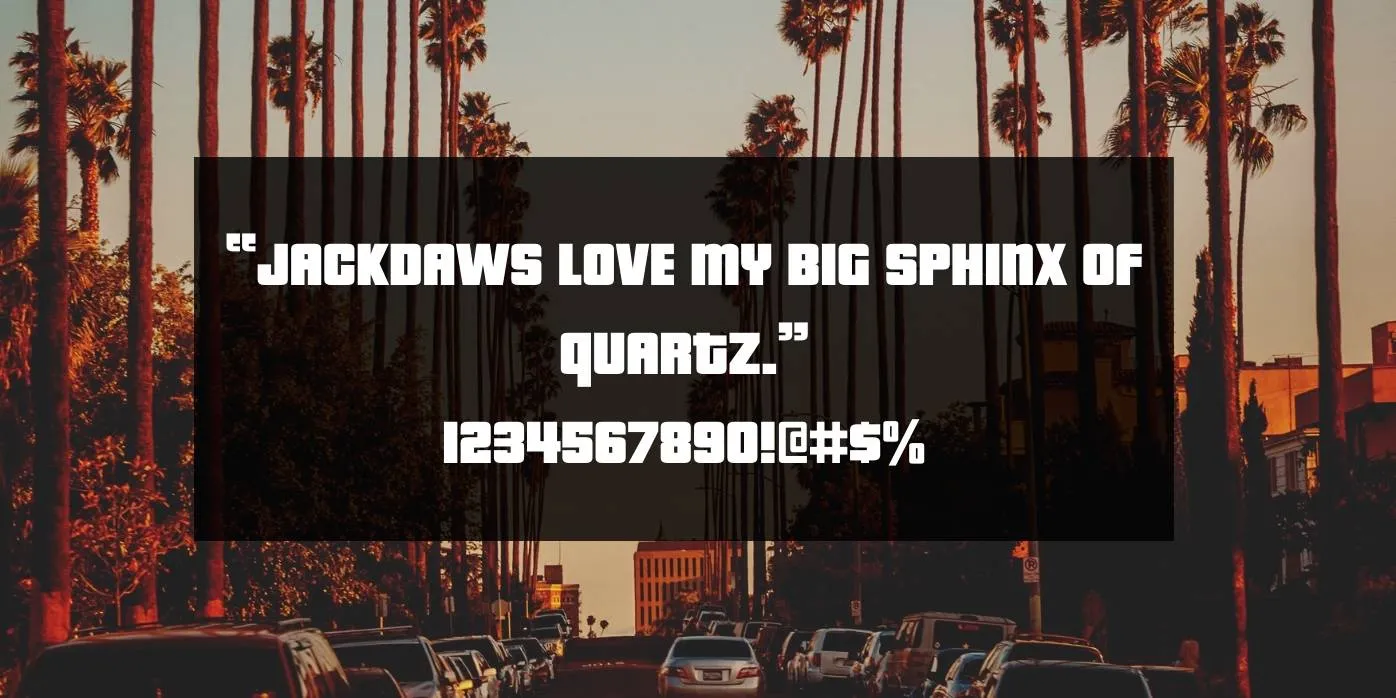
GTA Font
Let us introduce you to the official update of GTA Font. The main purpose to designs this family is used for the logos of famous magazines. It is from logo-type font but we should shift to the category of sans serif fonts. This font family is also a part of Adobe Fonts.
This family was developed and shared by two well-known manufacturers named Tom Carnase and Herb Lubalin. You can easily search it on Google. GTA Font family comes in TTF and OTF file formats. The alternative to this typeface is neo sans font with the same styles and functions.
For Canva and Adobe Photoshop, this typeface is best. This awesome family comes in 20 advanced styles including Bold, Italic, Light, and so on. Its text generator has many text effects that make it perfect for your designs.